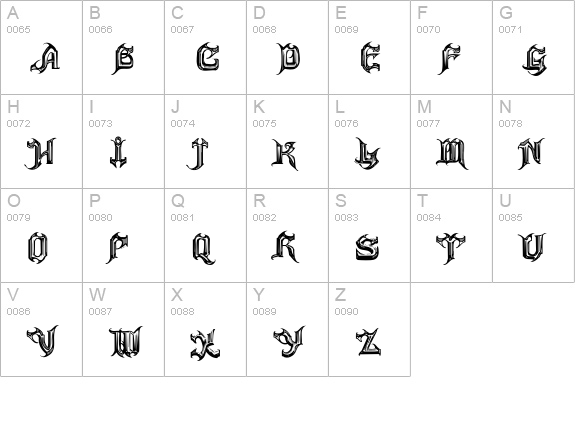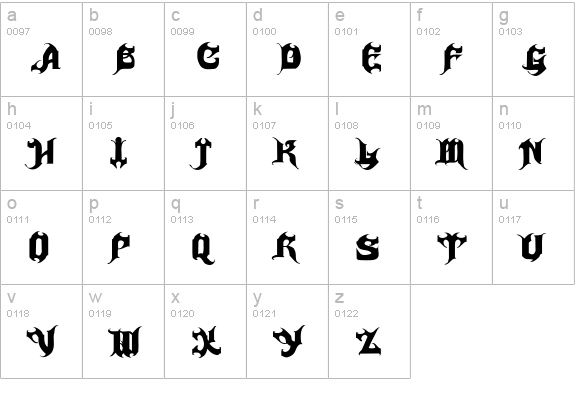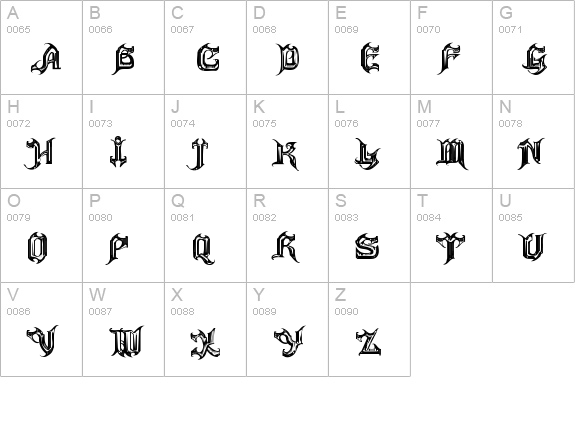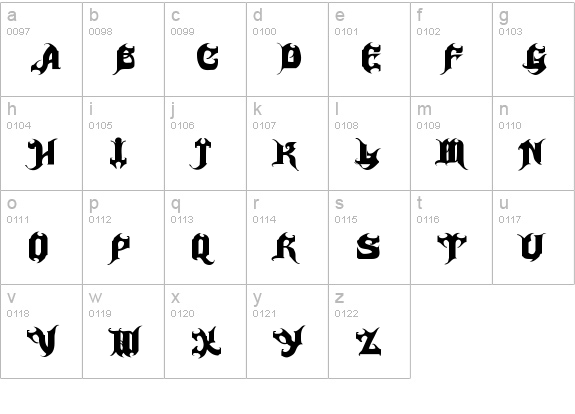
Haunted-Normal is the standard, neutral variant in the Haunted typeface family \xE2\x80\x94 well suited to general body text, paragraphs, and standard typographic work.
Introducing Haunted-Normal, a captivating and eerie font that will bring a chilling touch to your designs. This font is perfect for any project that requires a touch of the supernatural, whether it be spooky Halloween invitations, haunted house flyers, or mysterious book covers. With its unique and twisted letterforms, Haunted-Normal exudes an aura of mystery and darkness, giving your text a ghostly presence. Its carefully crafted details and hauntingly beautiful curves make each character come to life, adding an extra layer of spine-tingling atmosphere to your designs. But what sets Haunted-Normal apart is not only its mesmerizing aesthetics, but also its availability. This font is freely available to download at FontsMarket.com, making it easily accessible for all designers and enthusiasts alike. Now, you can effortlessly add a touch of the supernatural to your projects without any cost or restrictions. Whether you're a professional designer or a hobbyist, Haunted-Normal is the perfect choice for adding an otherworldly charm to your creations. So, don't miss out on this opportunity to unleash the spirits within your designs and download Haunted-Normal for free at FontsMarket.com today!